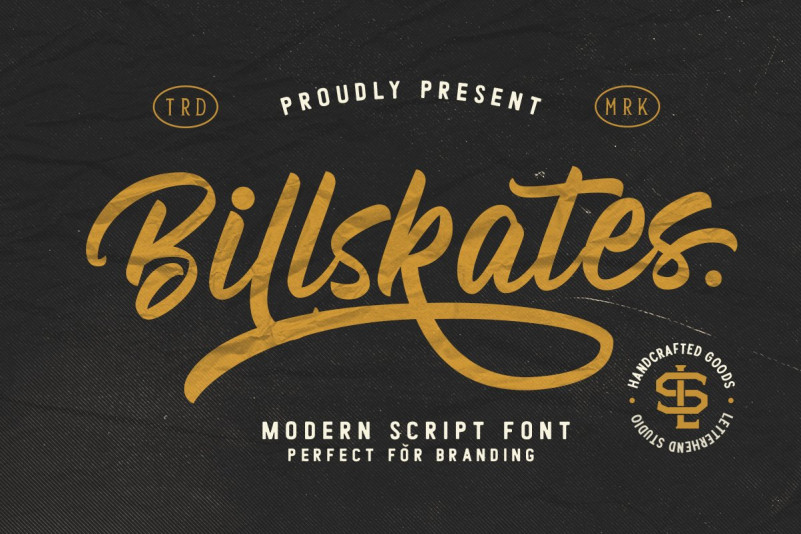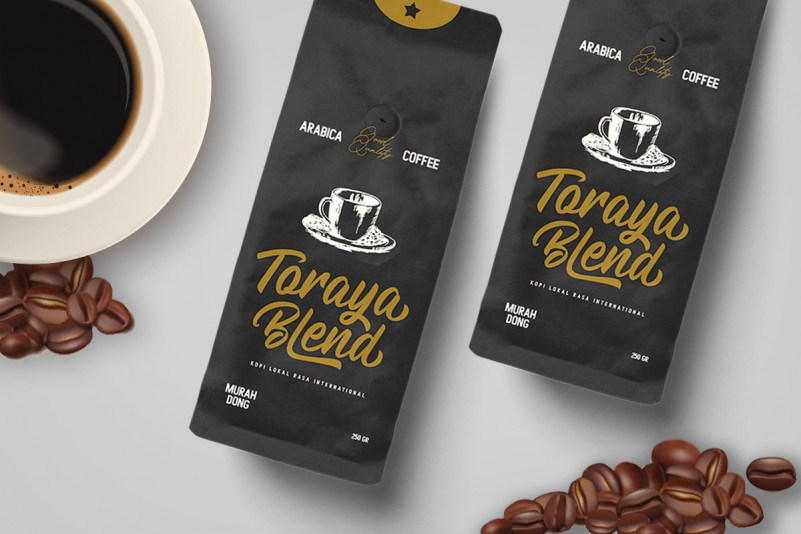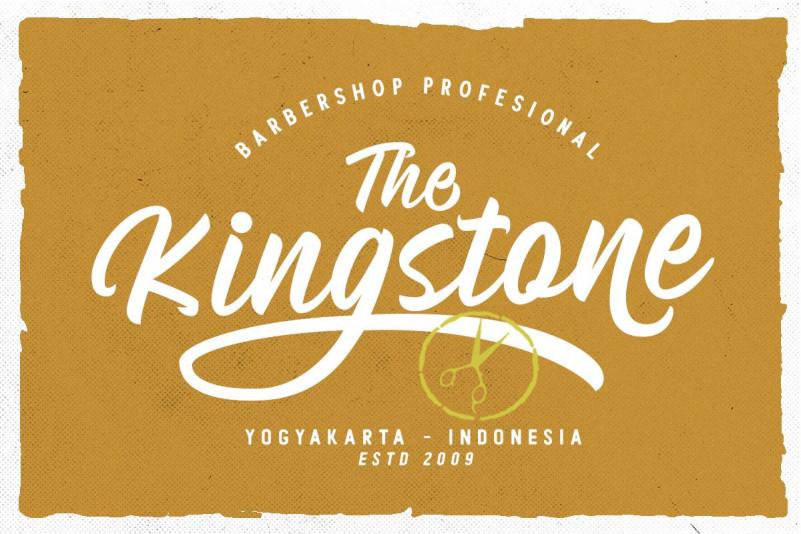
Billskates Font
Introducing, Billskates, a modern script font. This font perfectly made to be applied especially in logo, and the other various formal forms such as invitations, labels, logos, magazines, books, greeting / wedding cards, packaging, fashion, make up, stationery, novels, labels or any type of advertising purpose.